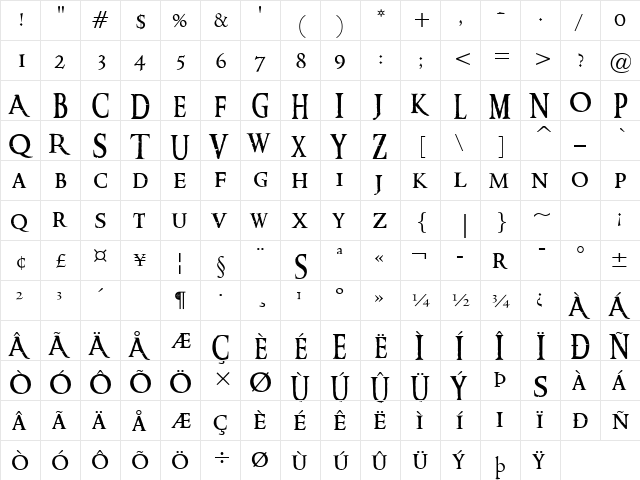
Ringbearer Medium
Design Context for Ringbearer Typeface
Ringbearer is a composed and adaptable typeface that performs quietly and consistently across a wide range of design contexts.